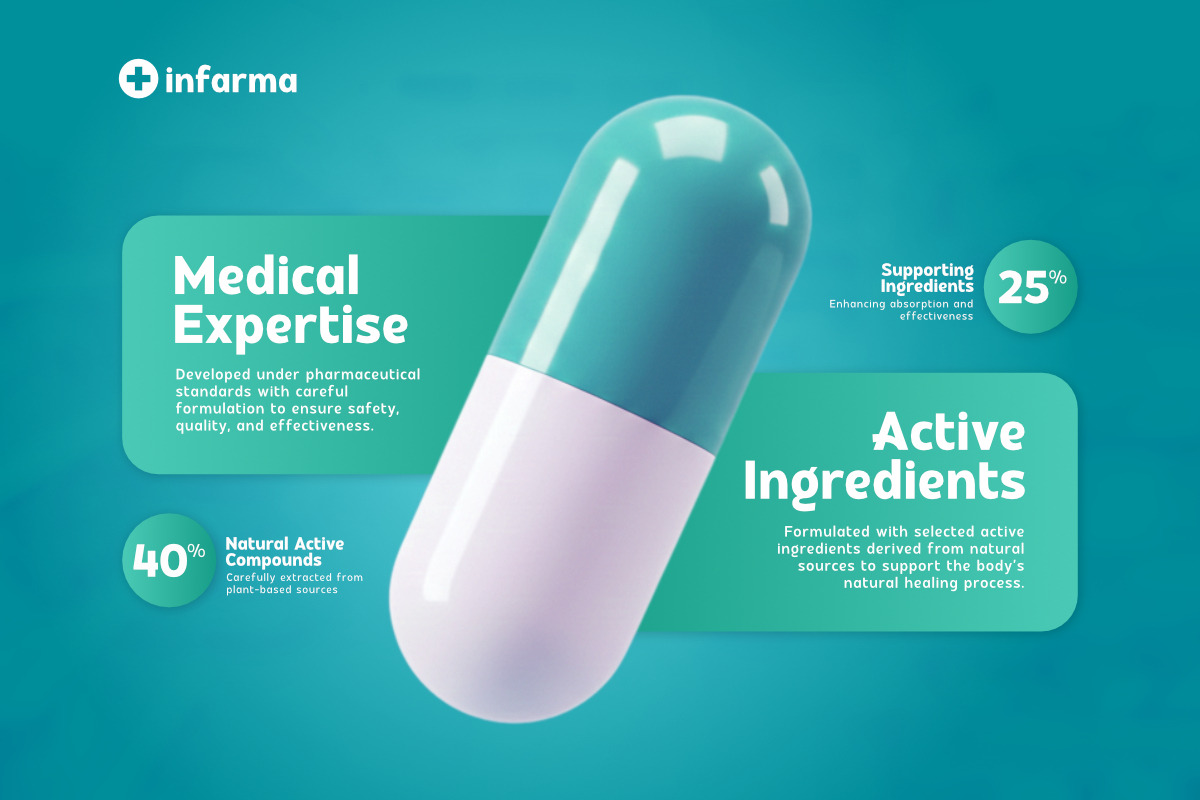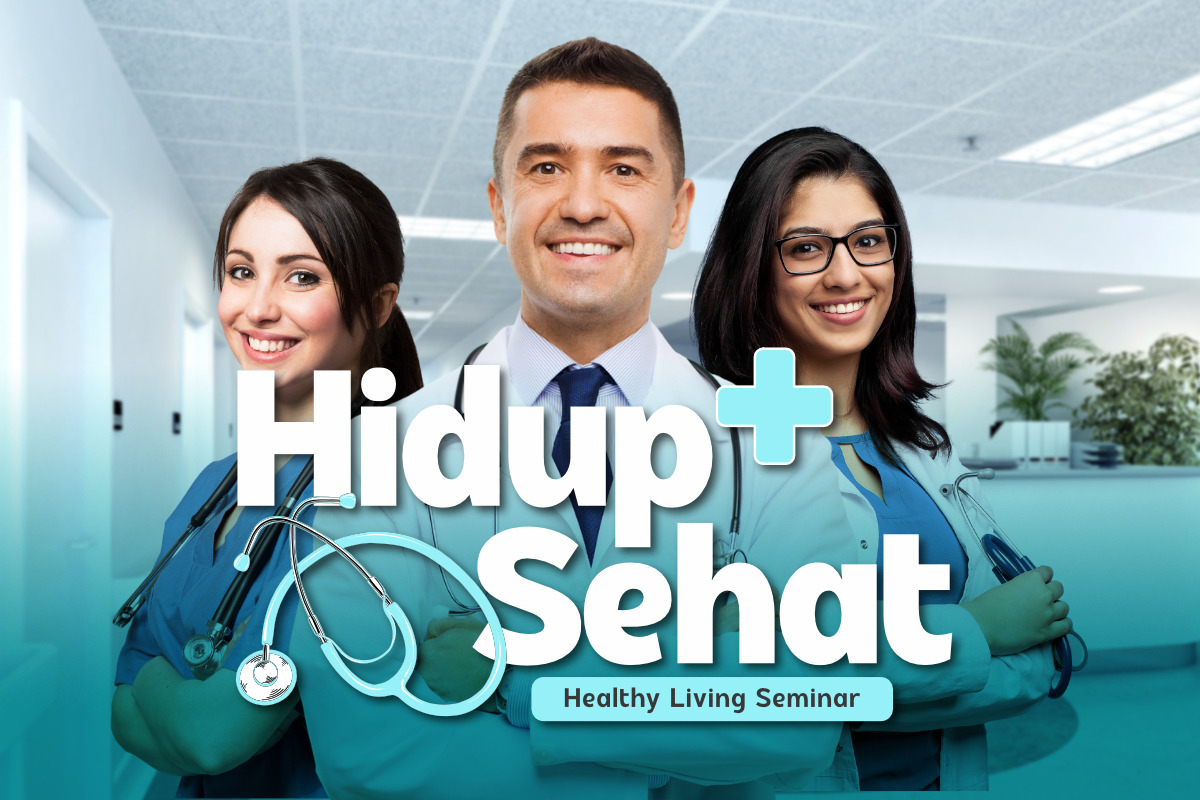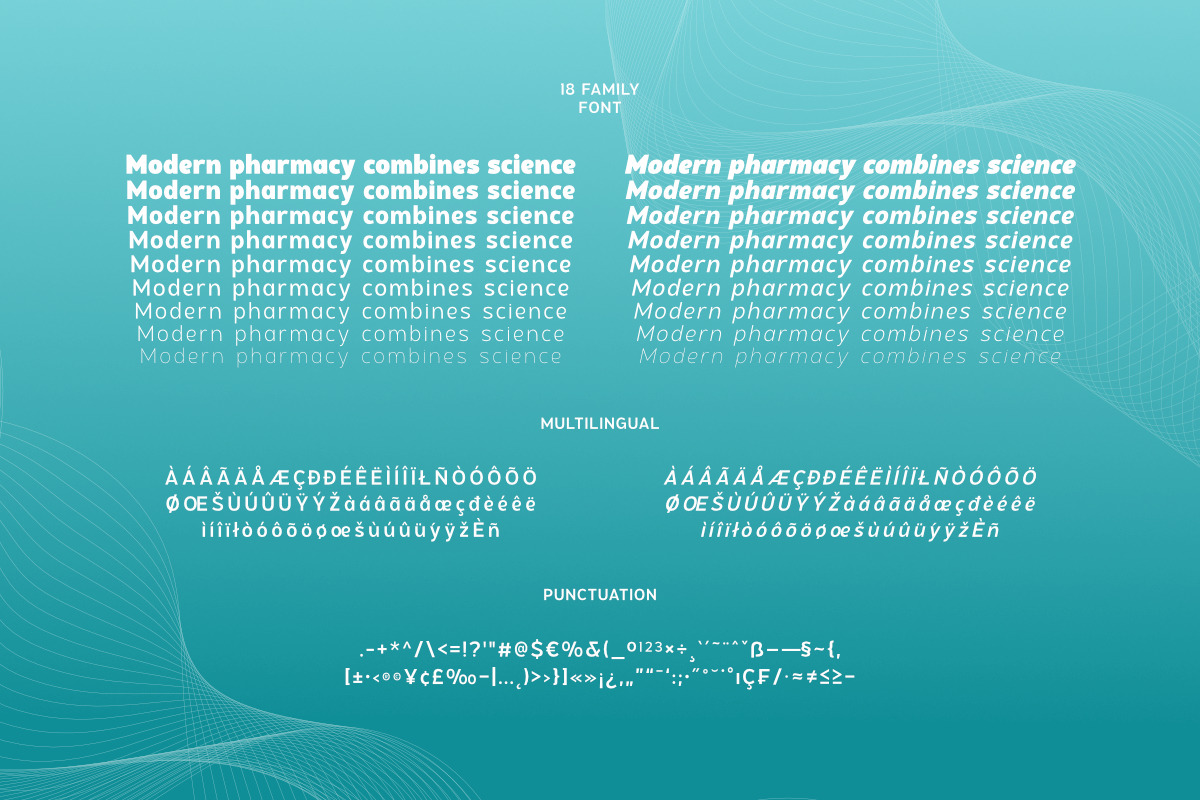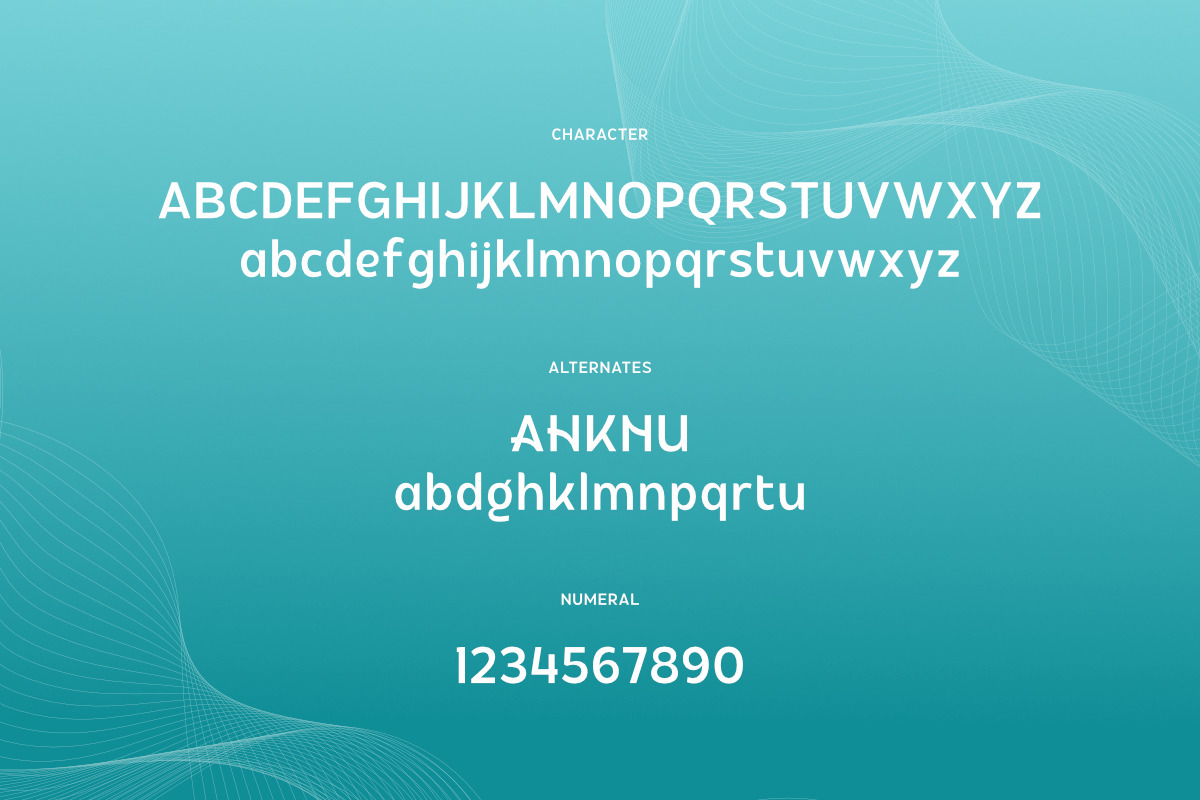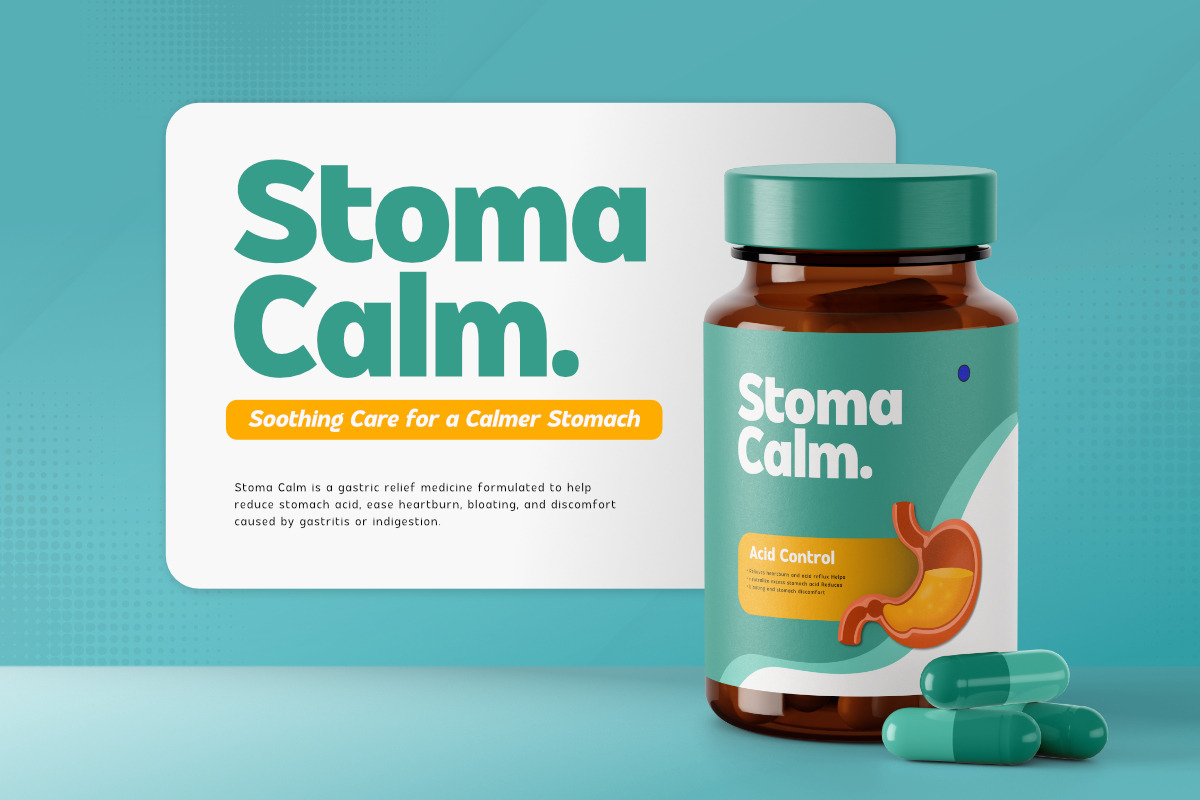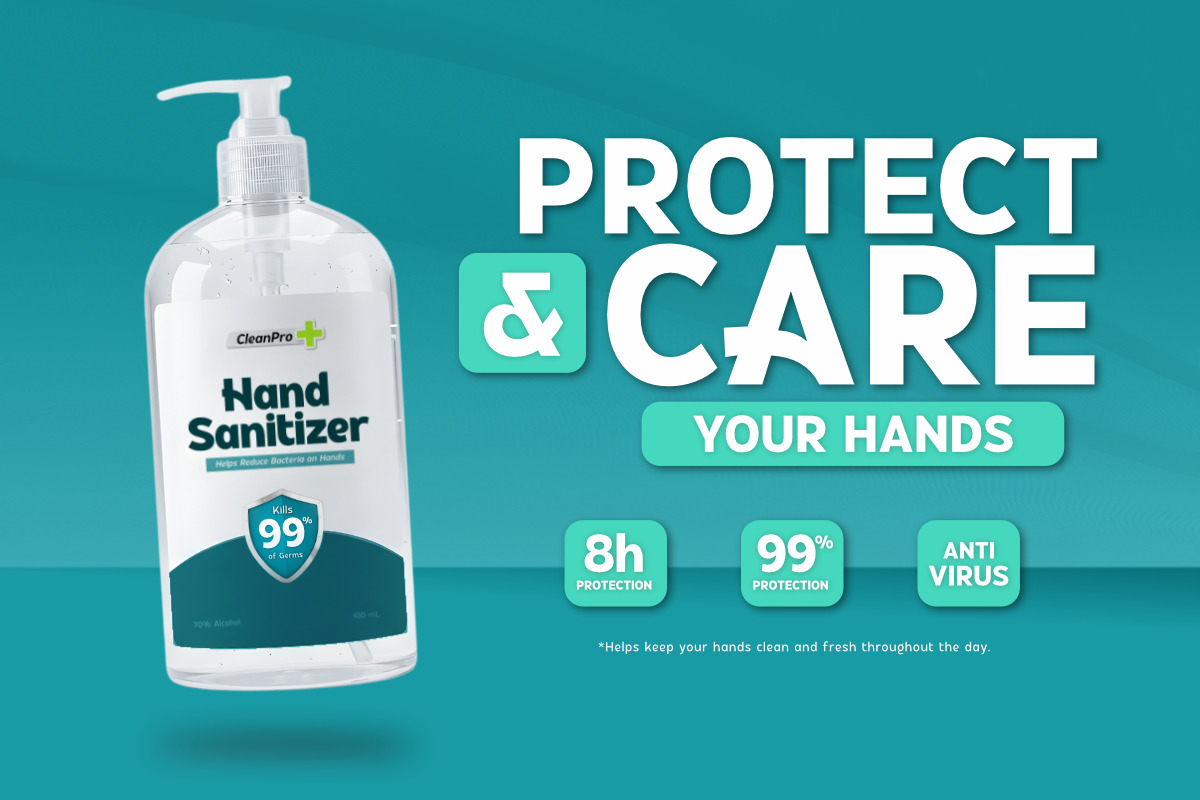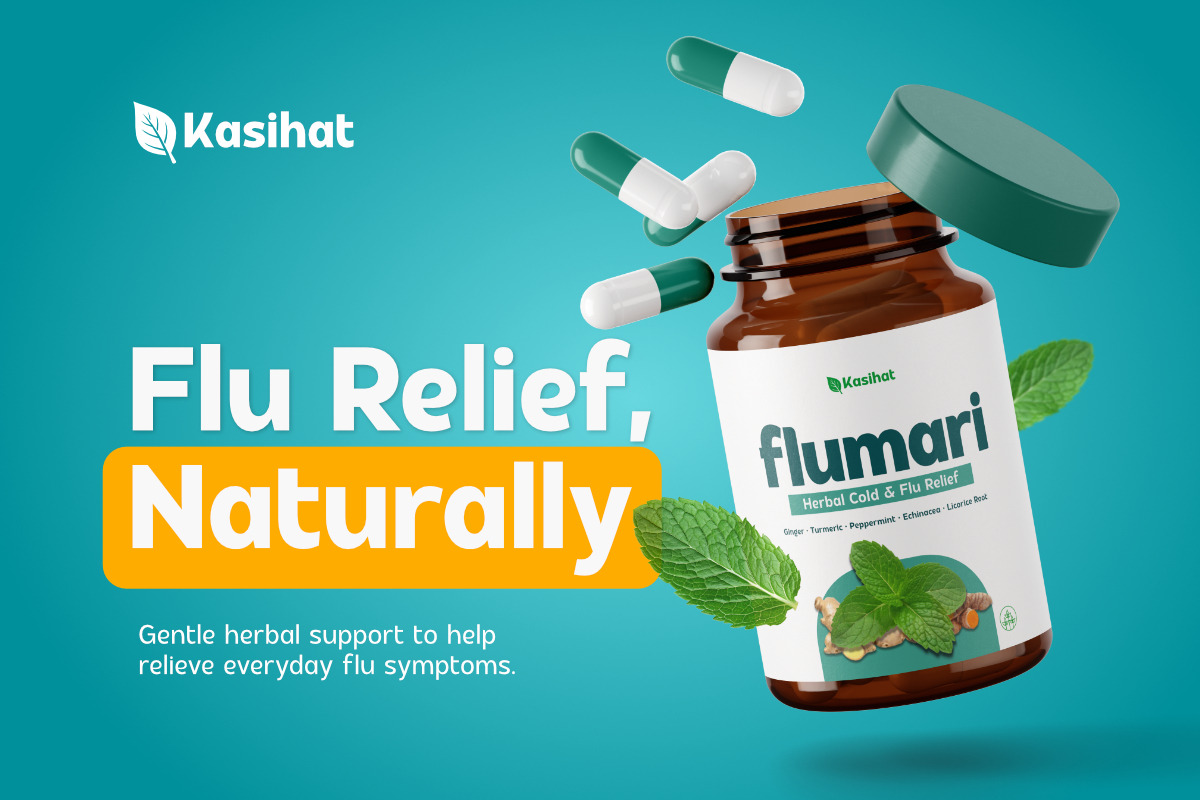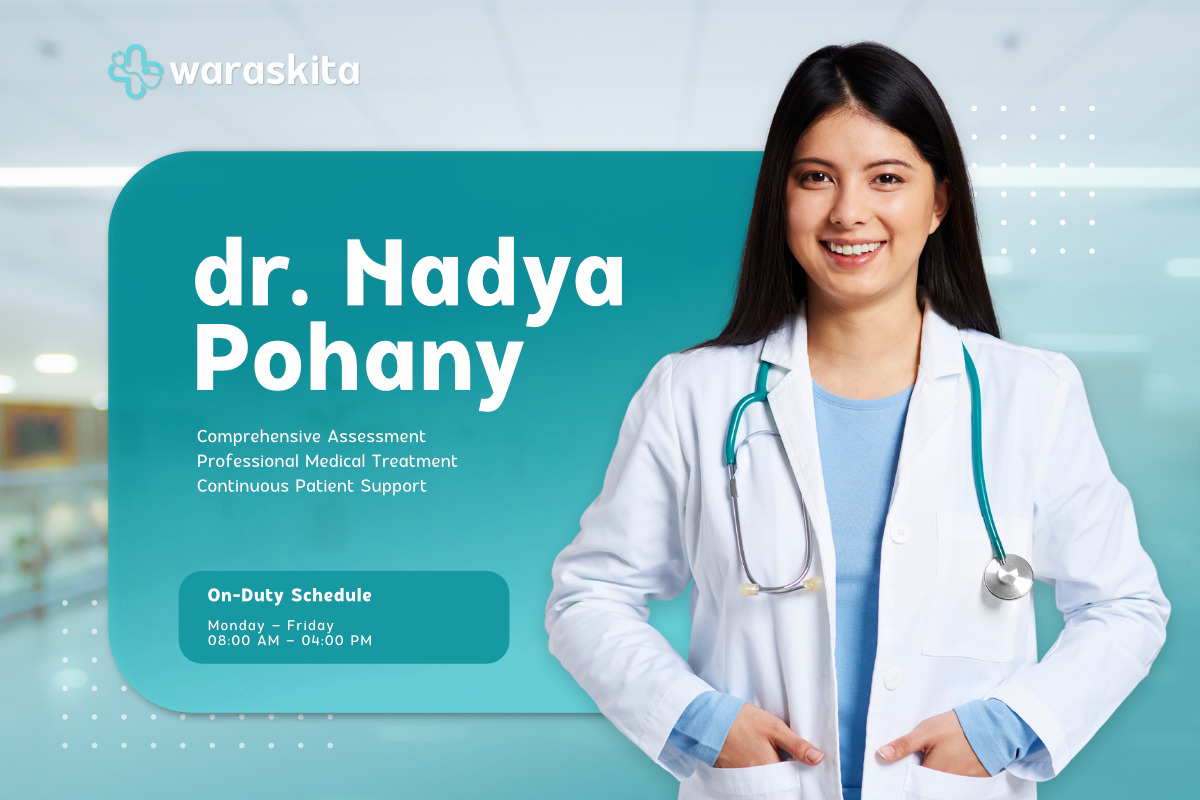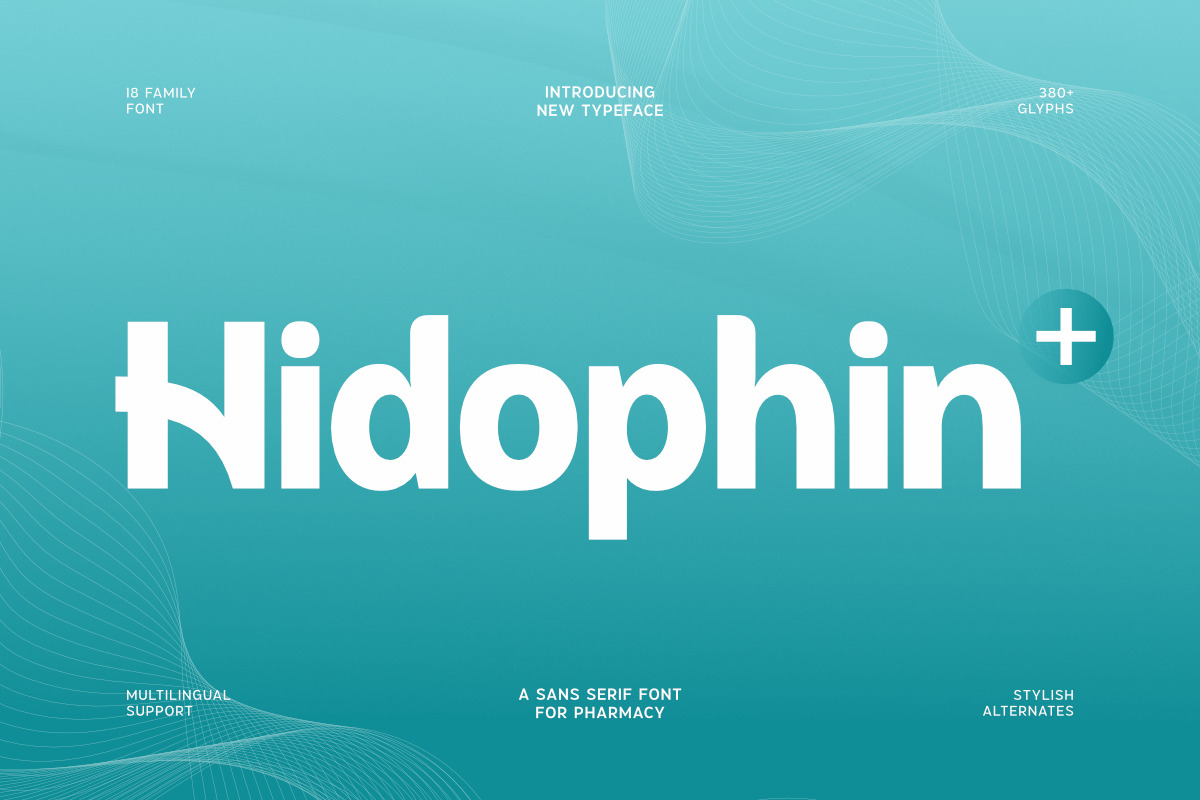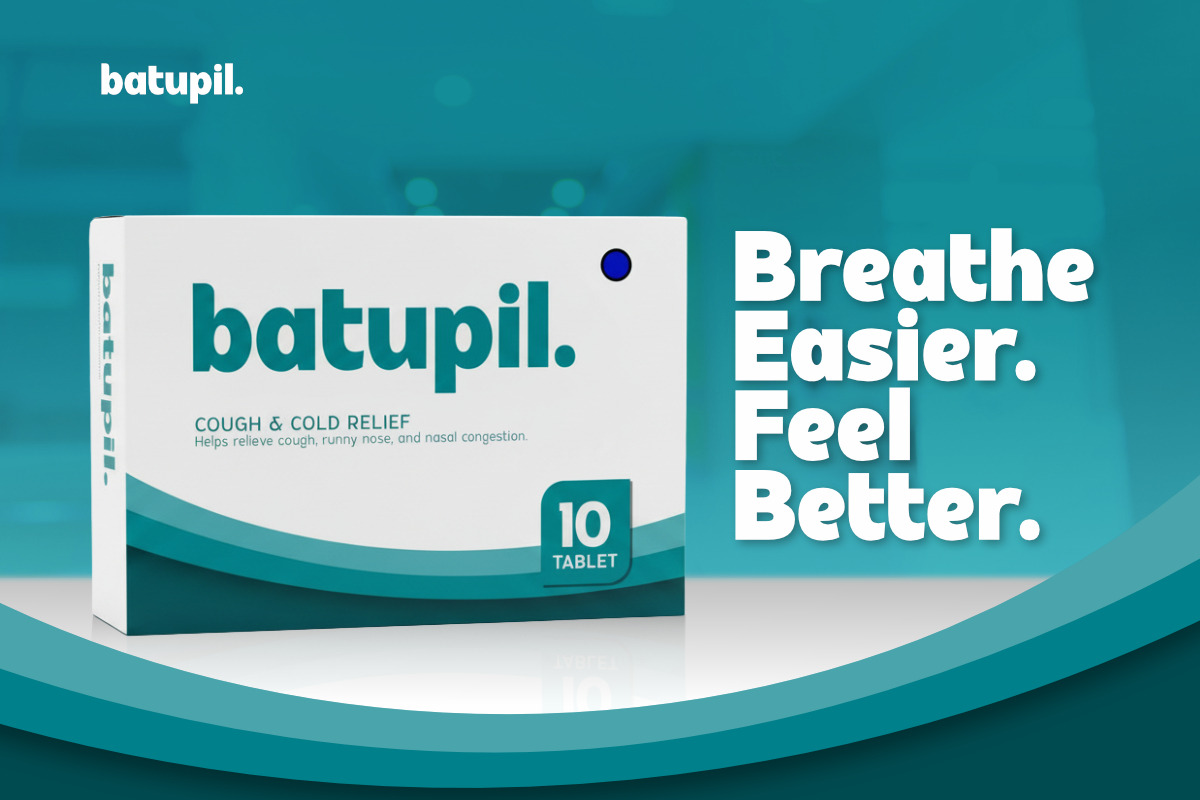
Hidophin - Sans Serif Font Pharmacy
Hidophin is a modern Sans Serif typeface specifically crafted for the pharmacy and healthcare industries. The clean and minimalist letterforms provide a professional and trustworthy impression. Its visual characteristics are highly suitable for medicine branding, drugstore identities, herbal products, and various companies within the healthcare sector.
Its functional design structure ensures high readability across both print and digital media. The balanced proportions make Hidophin a practical solution for product packaging, medical logos, drug information labels, and healthcare website interfaces. Its clean shapes help clarify the delivery of technical information that requires good visual accuracy.
As a Pharmacy & Healthcare Font, Hidophin supports multilingual characters, providing flexibility for designers managing both local and international projects. This font is the right choice for businesses prioritizing credibility and visual clarity in their corporate identity. With its contemporary style, Hidophin helps strengthen the information hierarchy in any professional layout.
Multilingual Support: Fully supports 85+ languages, including: Afrikaans, Albanian, Asu, Basque, Bemba, Bena, Breton, Catalan, Chiga, Cornish, Croatian, Czech, Danish, Dutch, Embu, English, Esperanto, Estonian, Filipino, Finnish, French, Friulian, Galician, Gusii, Hungarian, Indonesian, Irish, Italian, Kabuverdianu, Kalenjin, Kamba, Kikuyu, Kinyarwanda, Latvian, Lithuanian, Lower Sorbian, Luo, Luxembourgish, Luyia, Machame, Makhuwa-Meetto, Makonde, Malagasy, Maltese, Manx, Meru, Morisyen, North Ndebele, Norwegian Bokmål, Norwegian Nynorsk, Nyankole, Oromo, Polish, Portuguese, Quechua, Romanian, Romansh, Rombo, Rundi, Rwa, Samburu, Sango, Sangu, Scottish Gaelic, Sena, Serbian, Shambala, Shona, Slovak, Slovenian, Soga, Somali, Spanish, Swahili, Swedish, Swiss German, Taita, Teso, Turkish, Upper Sorbian, Uzbek (Latin), Volapük, Vunjo, Walser, Zulu.